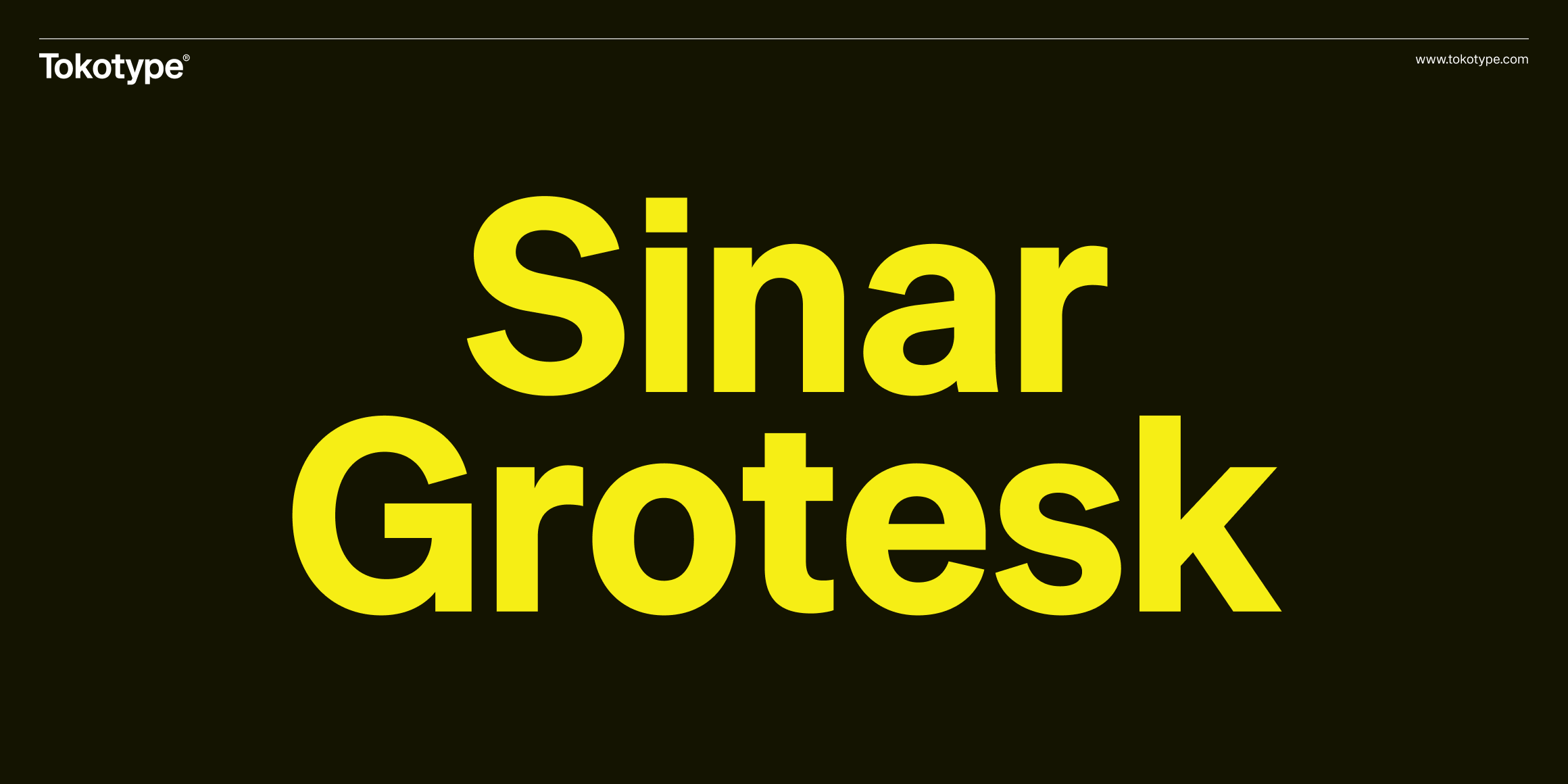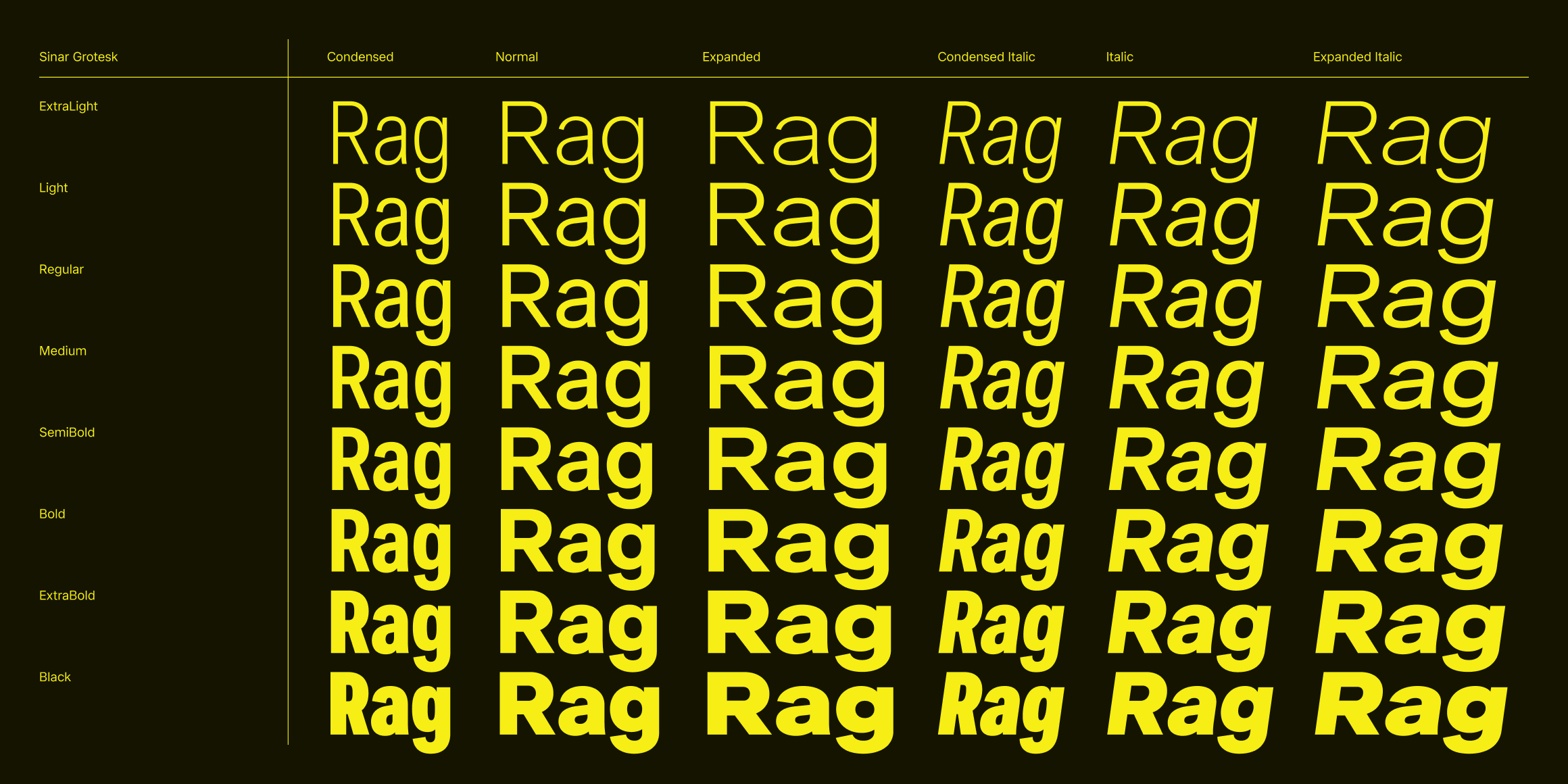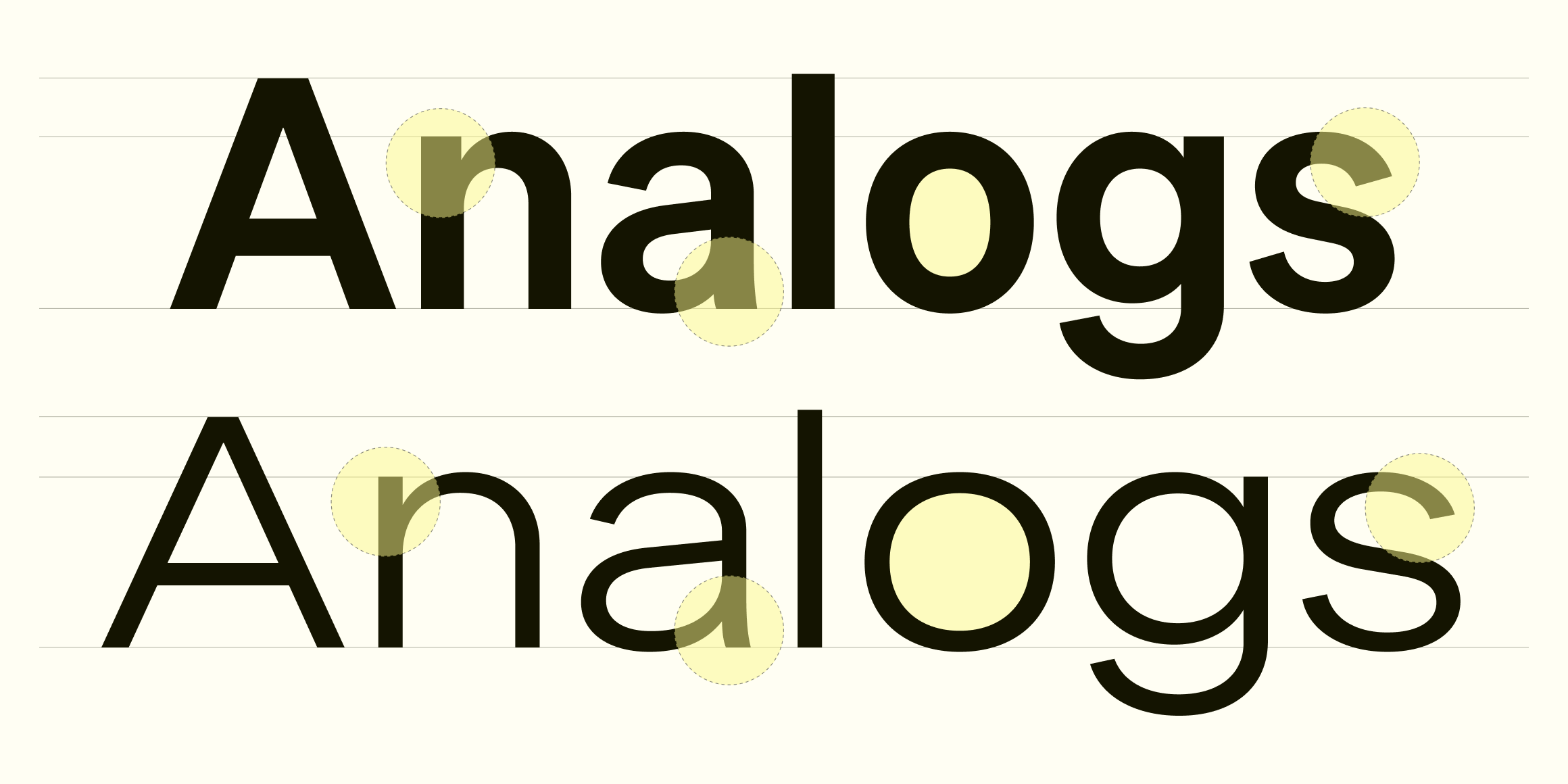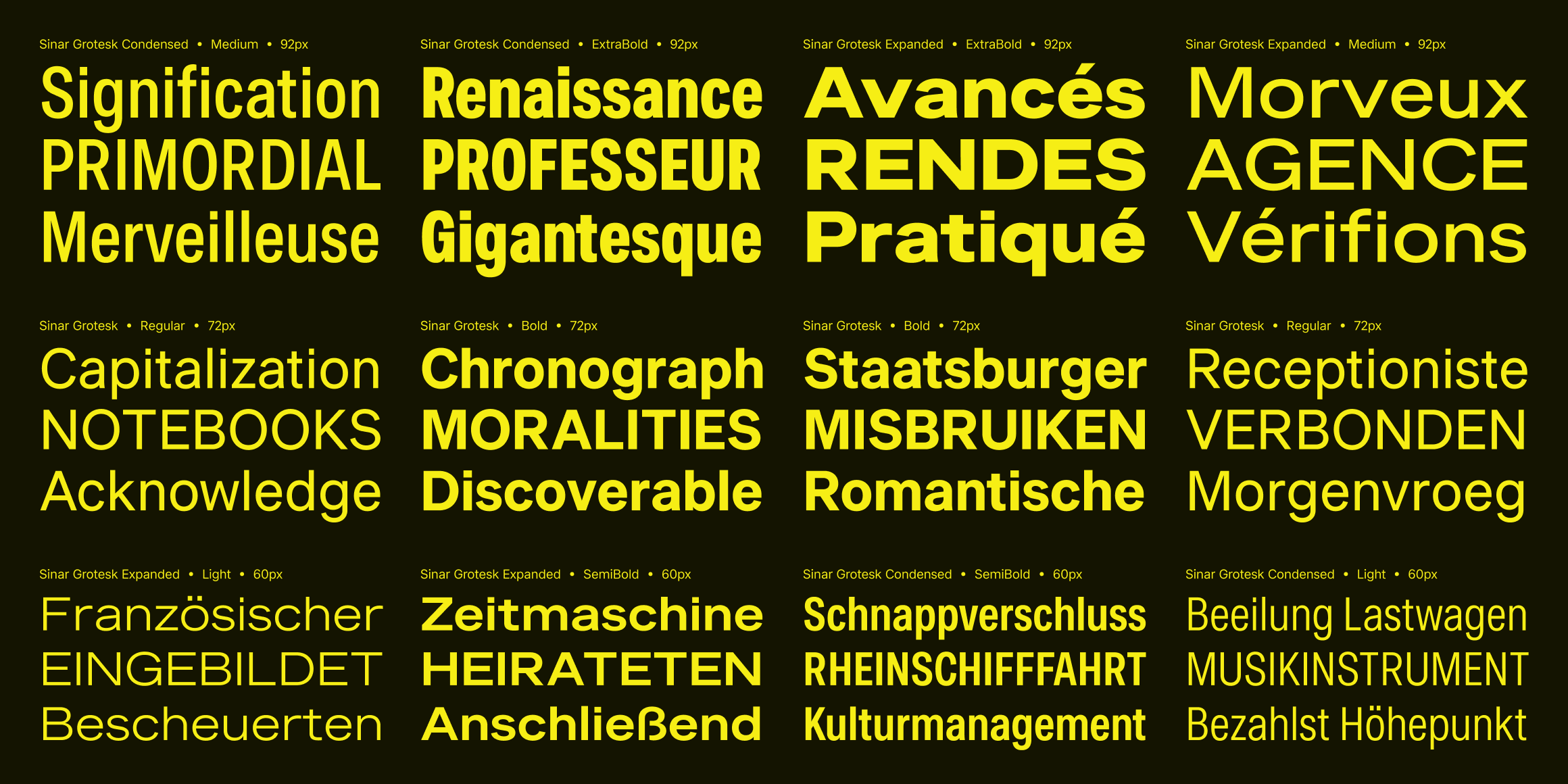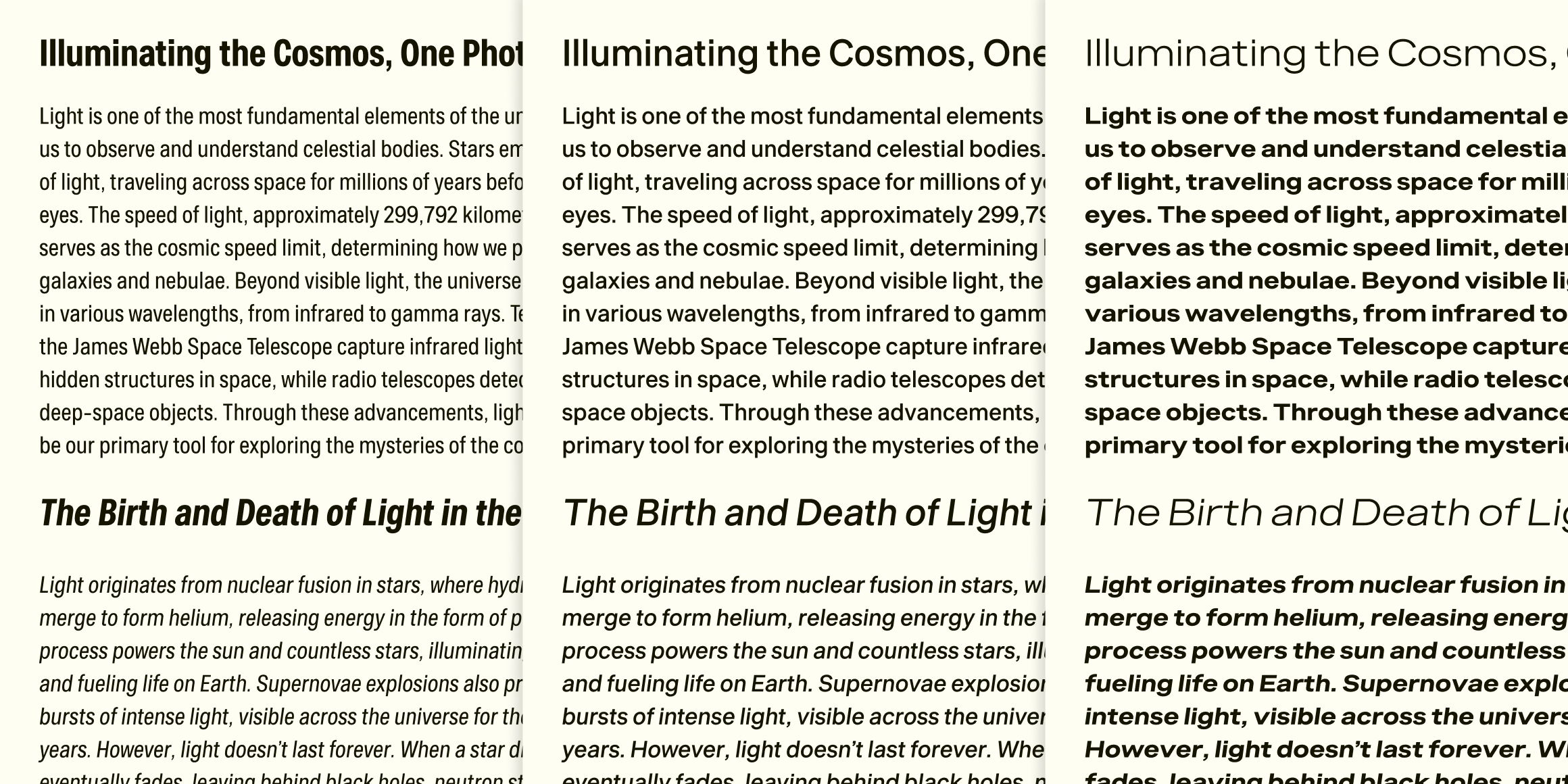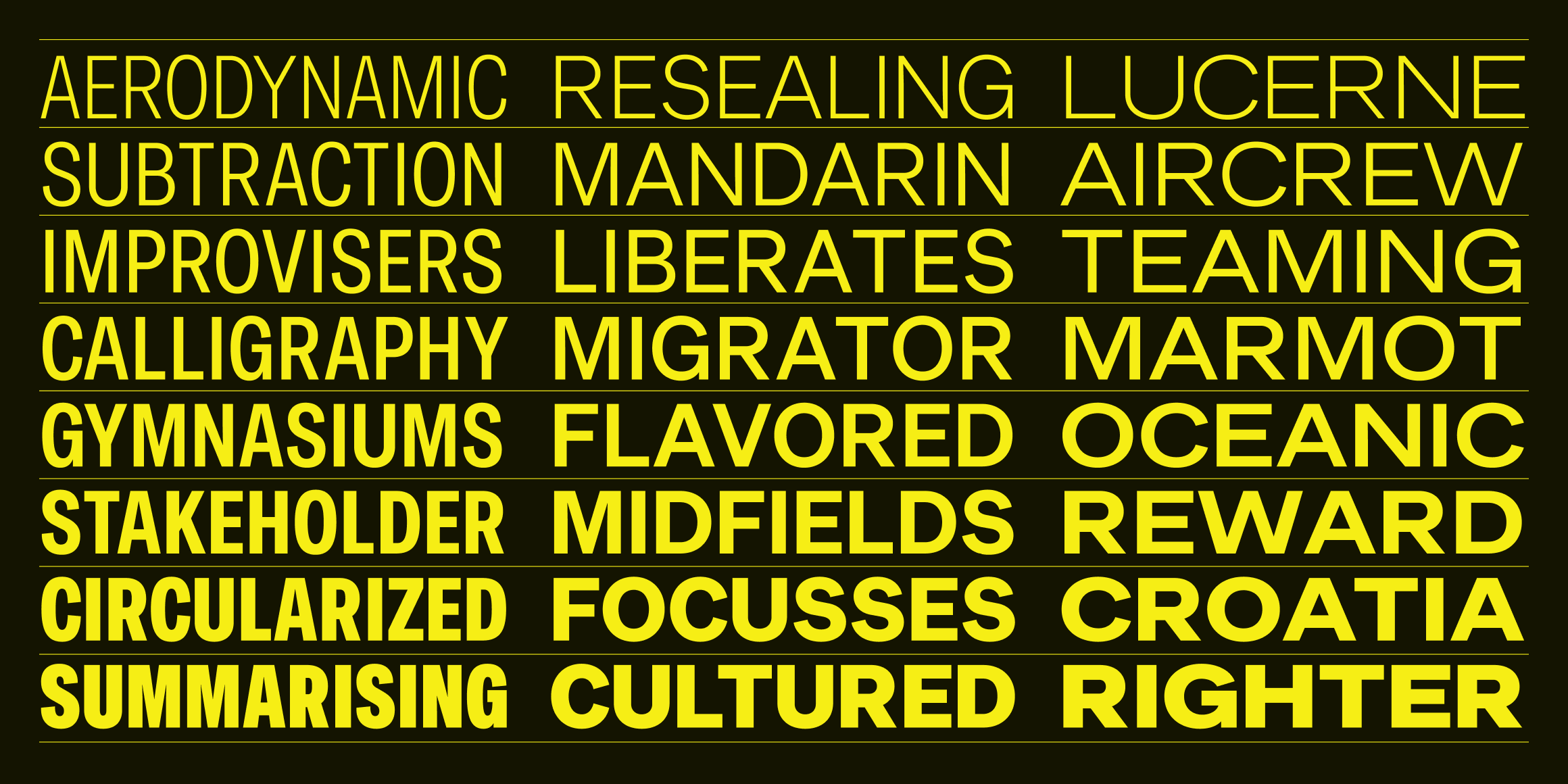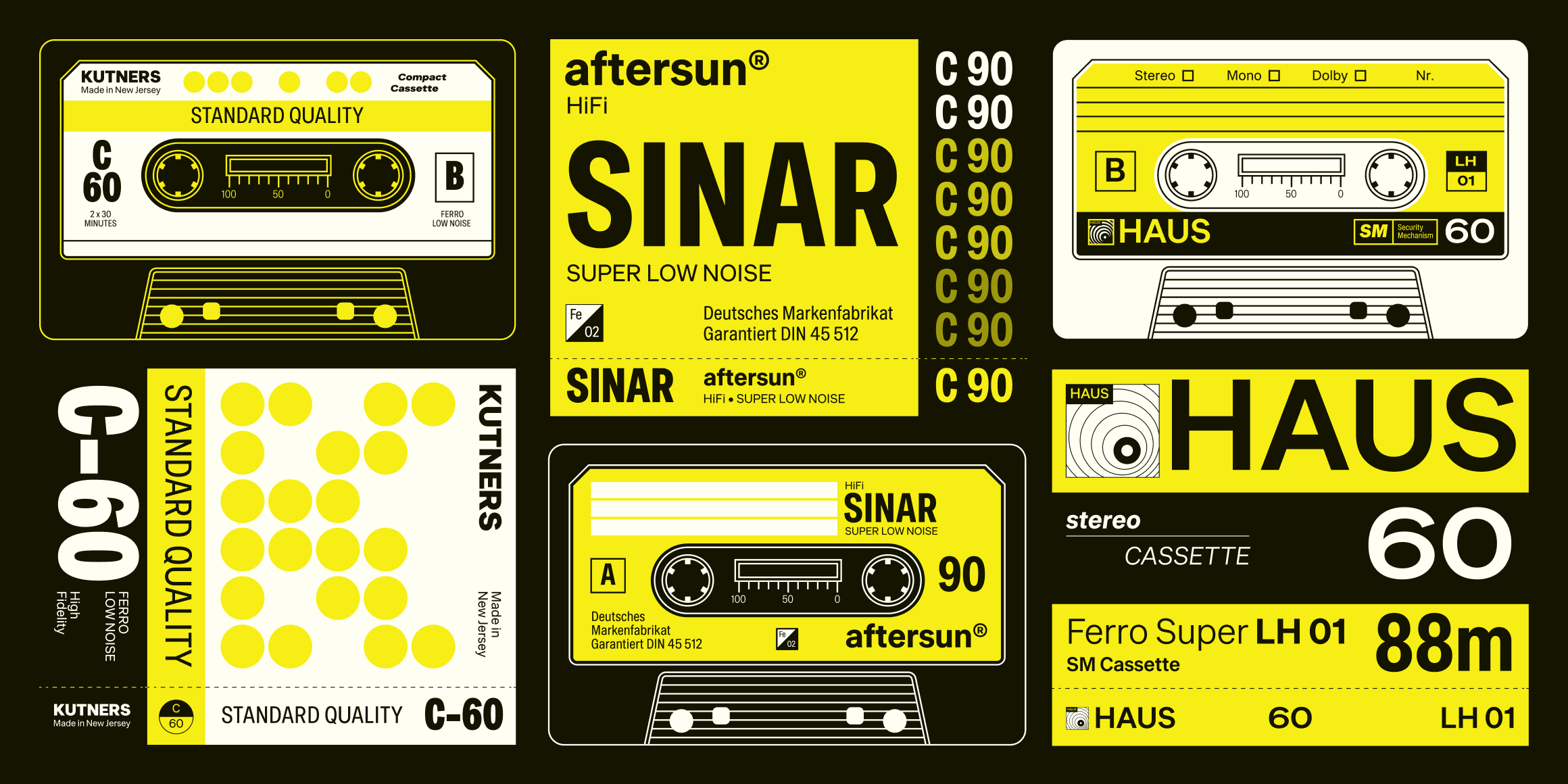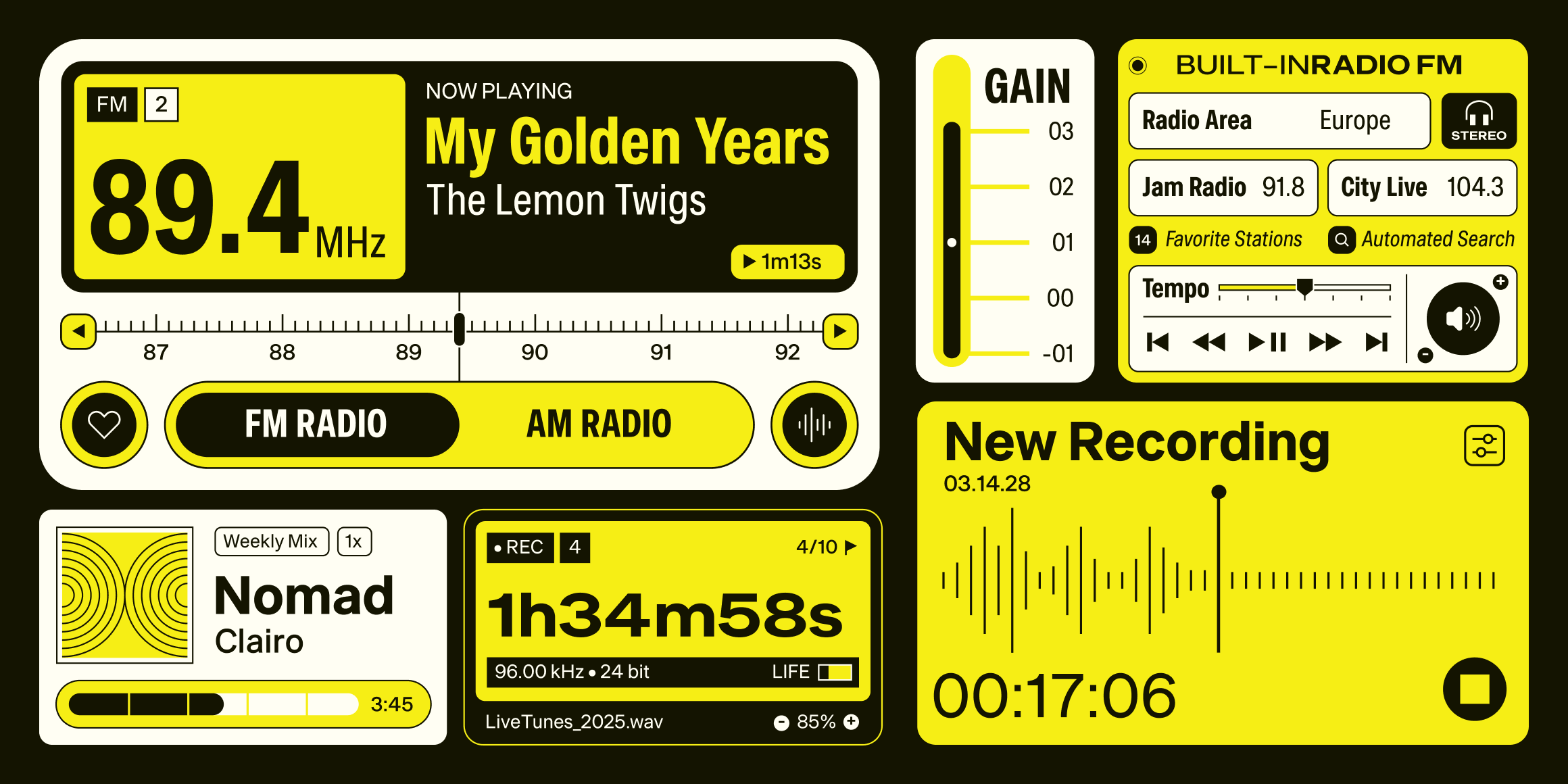
Sinar Grotesk Condensed
Tokotype
Sinar Grotesk is a refined sans-serif that blends neo-grotesque precision with the warmth of early geometric grotesques. Inspired by Akzidenz-Grotesk, Breite Grotesk, and Bauhaus design, it offers a timeless, neutral, and highly legible character. With monolinear strokes and linear proportions, it remains formal yet approachable, making it ideal for branding, editorial design, signage, and UI applications.
Its Swiss-influenced clarity ensures readability in both print and digital formats, while subtle details add warmth. Sinar Grotesk offers three variable axes—width (Condensed, Normal, Expanded) and weight (ExtraLight to Black)—allowing seamless adaptation across design needs. It embodies both tradition and modernity in a versatile, cohesive type system.